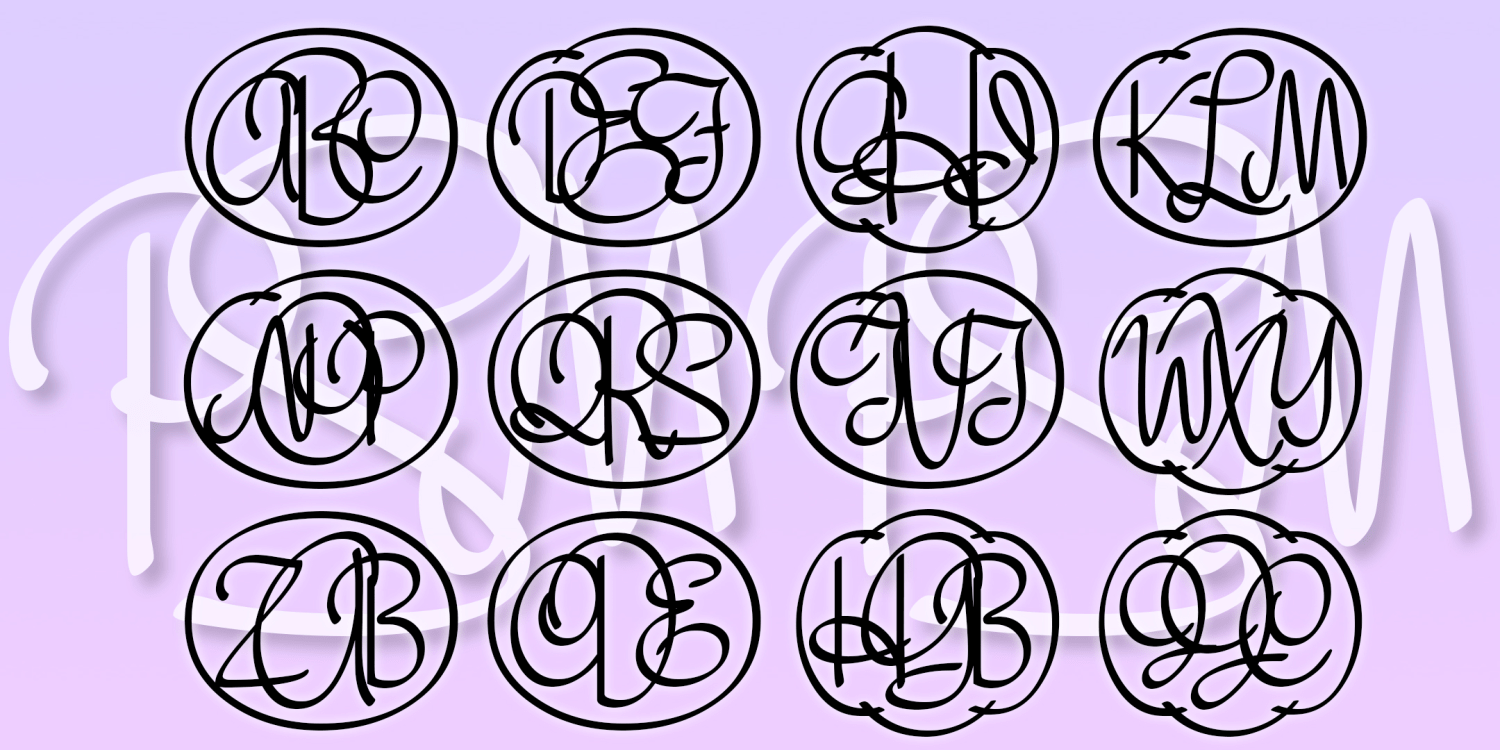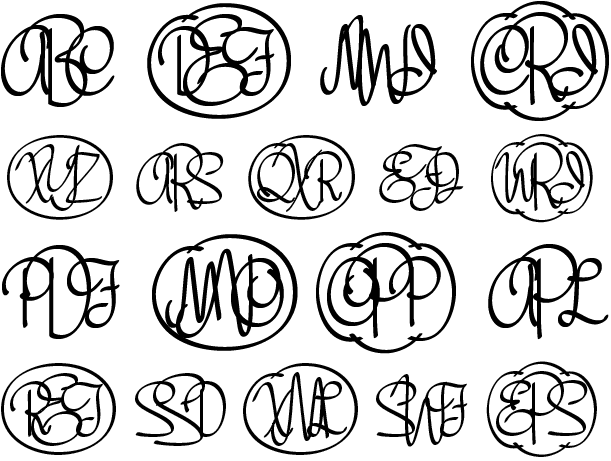
Pen Script Monograms
Pen Script Monograms was inspired by 1940s department store lettering in some old newspaper advertising I found. Use it to create custom 3-letter monograms in a calligraphic style with a choice of frames.